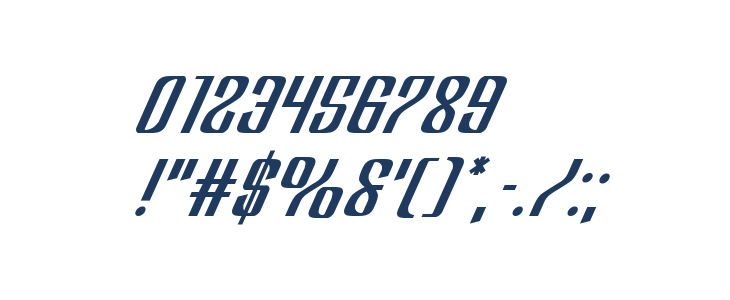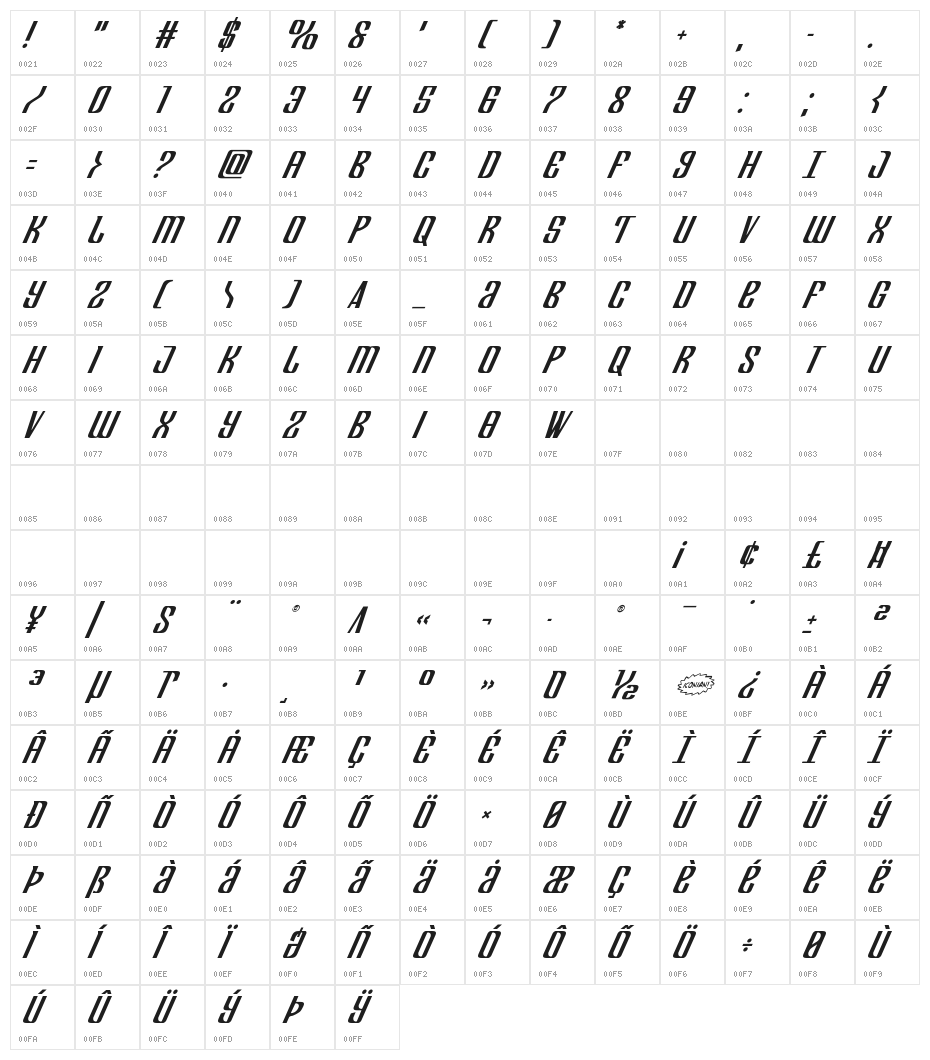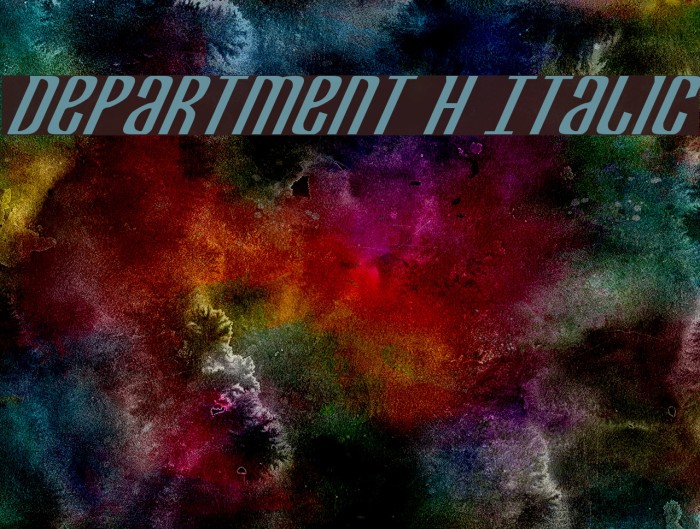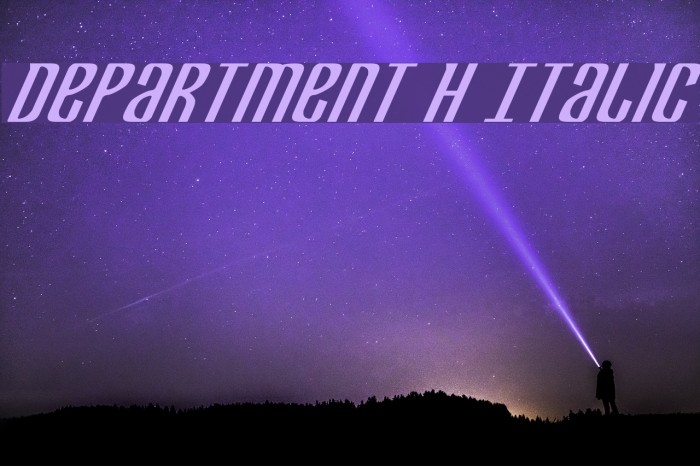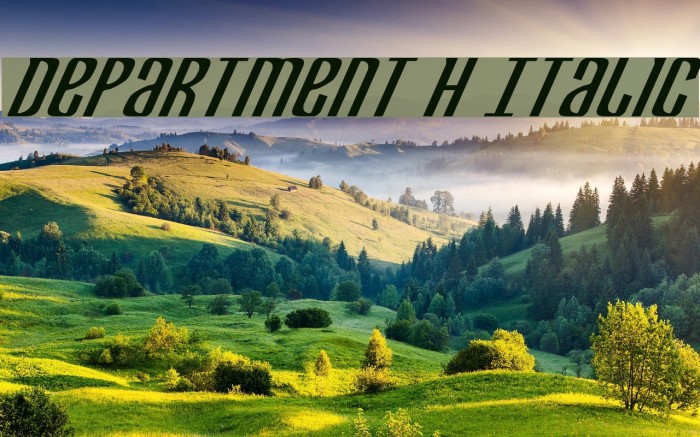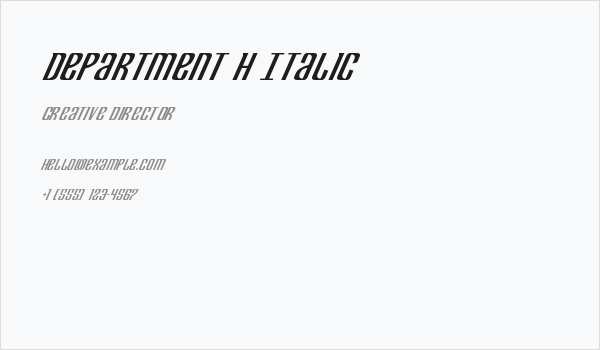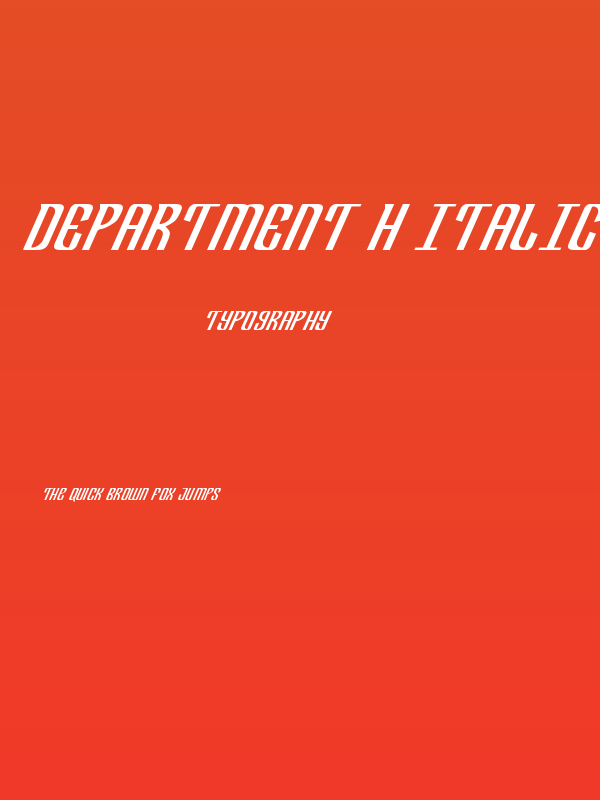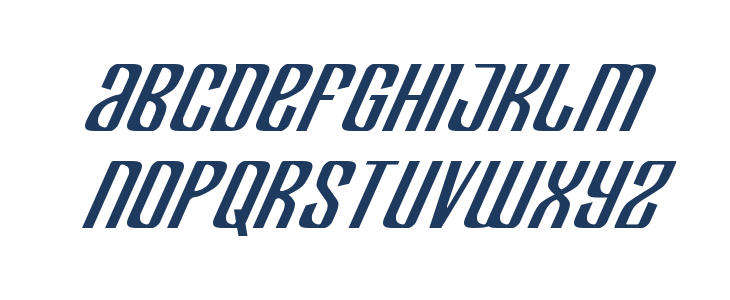
Department H Italic Font
Department H Italic Description
This font features a dynamic and modern italic style with a distinct slant, giving it a sense of motion and energy. The characters are bold and elongated, with sharp angles and clean lines that create a sleek and contemporary appearance. The uppercase and lowercase letters maintain a consistent style, while the numerals and special characters complement the overall design. The font's strong presence makes it suitable for impactful headlines and branding projects.
Proposed ProjectsIdeal for branding, advertising, sports team logos, and dynamic headlines.